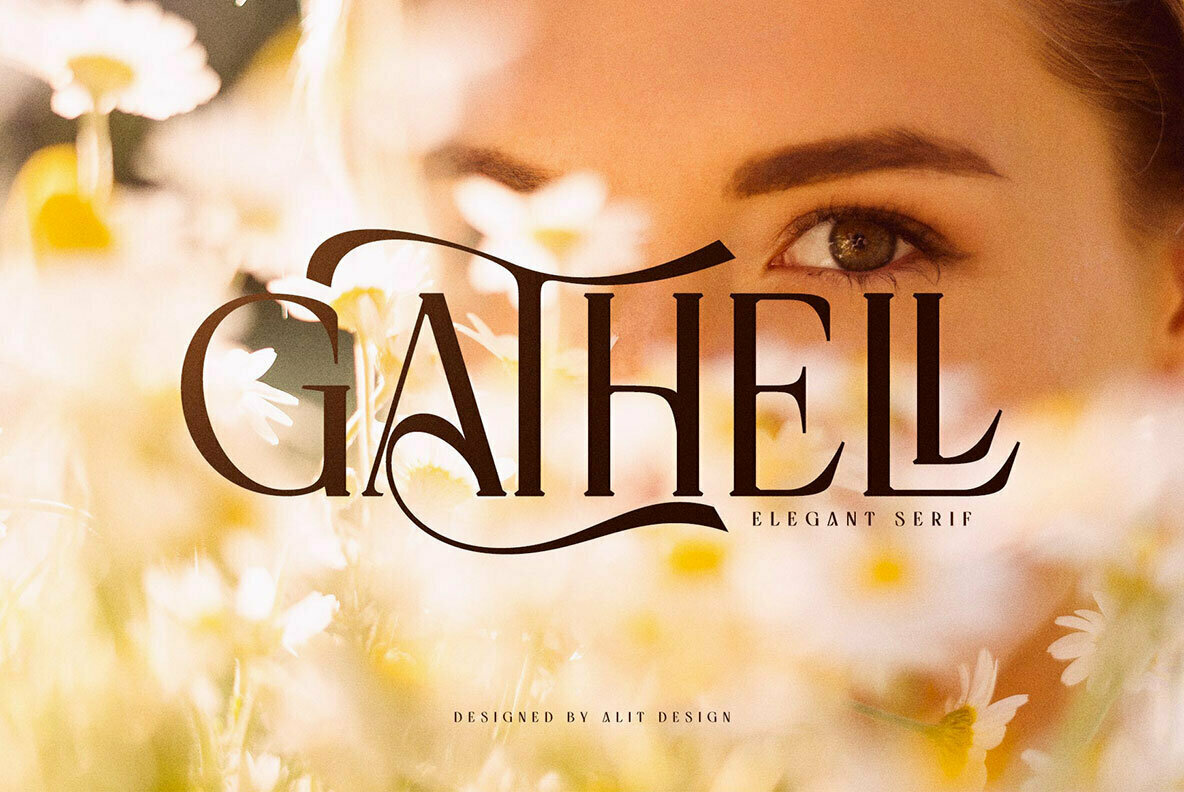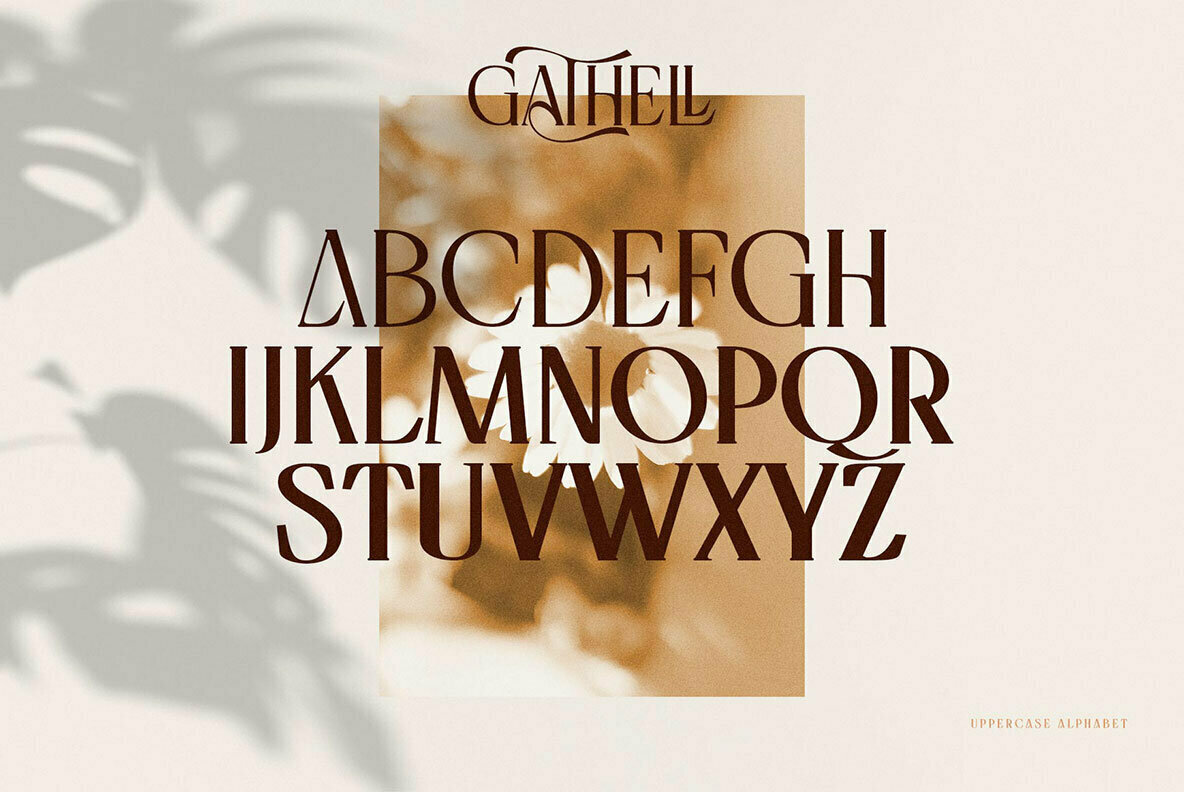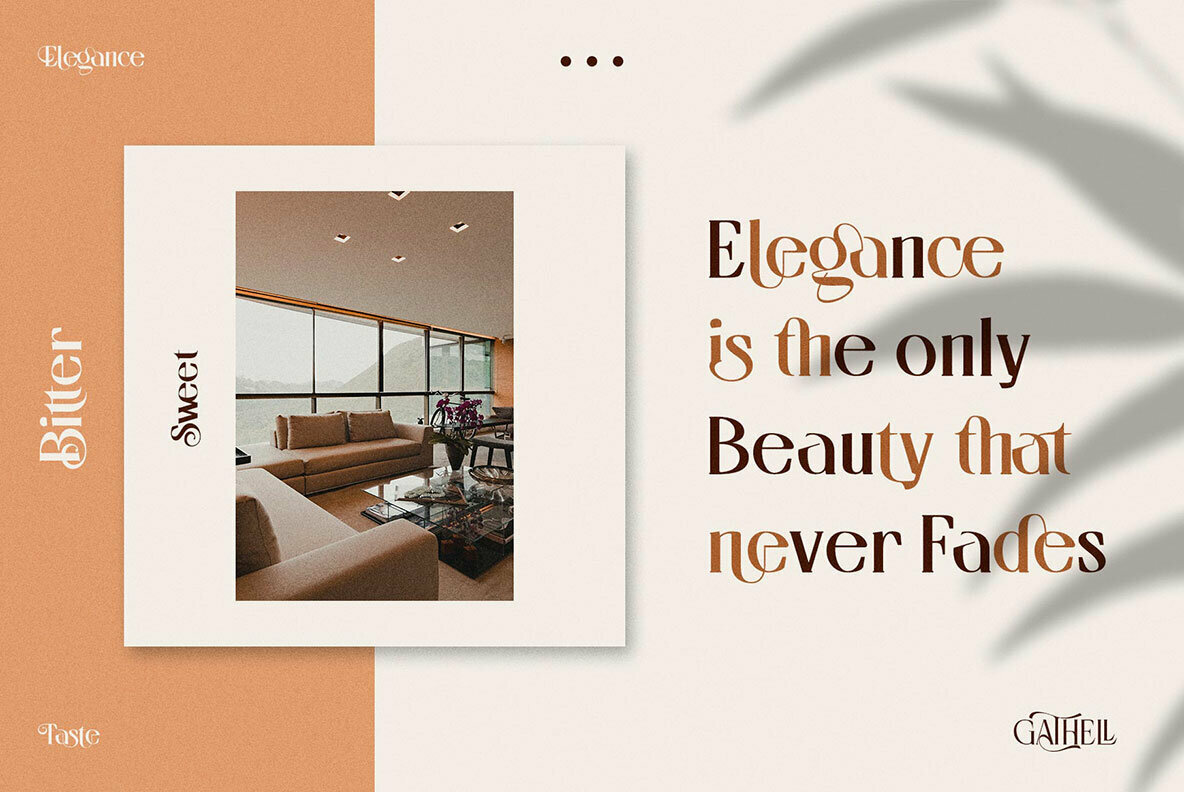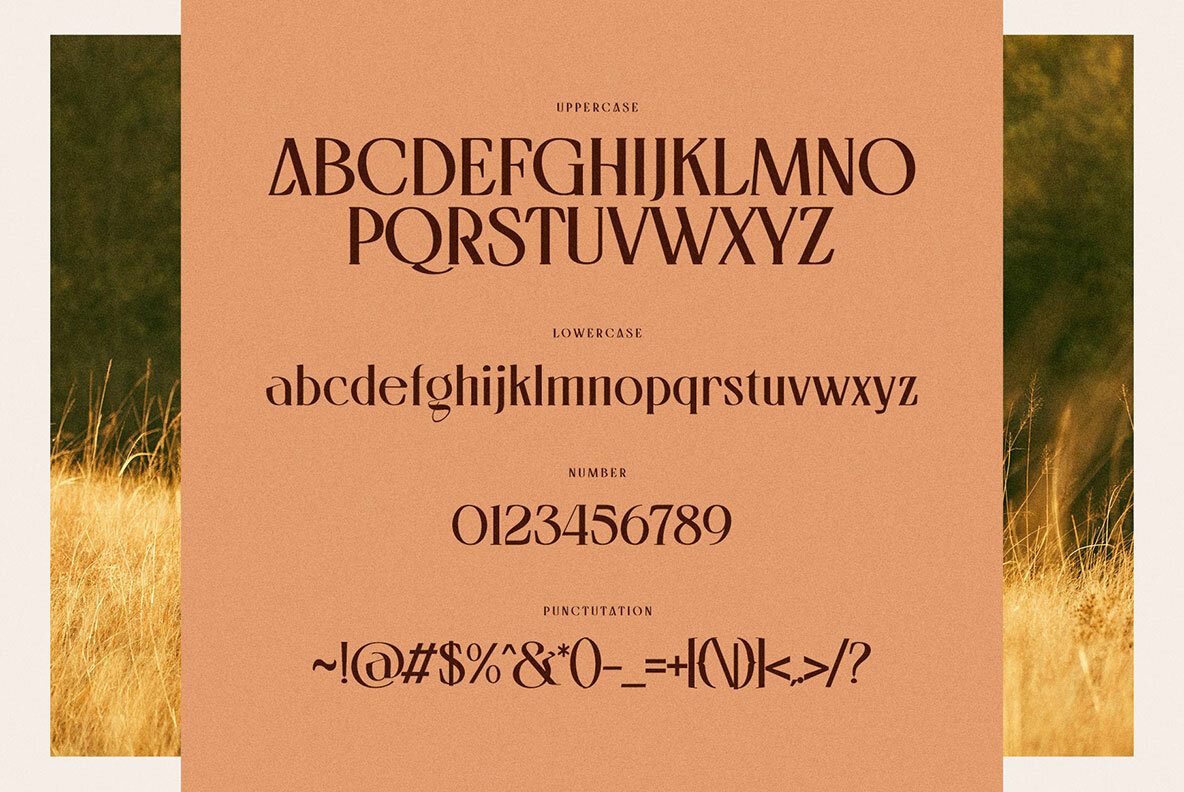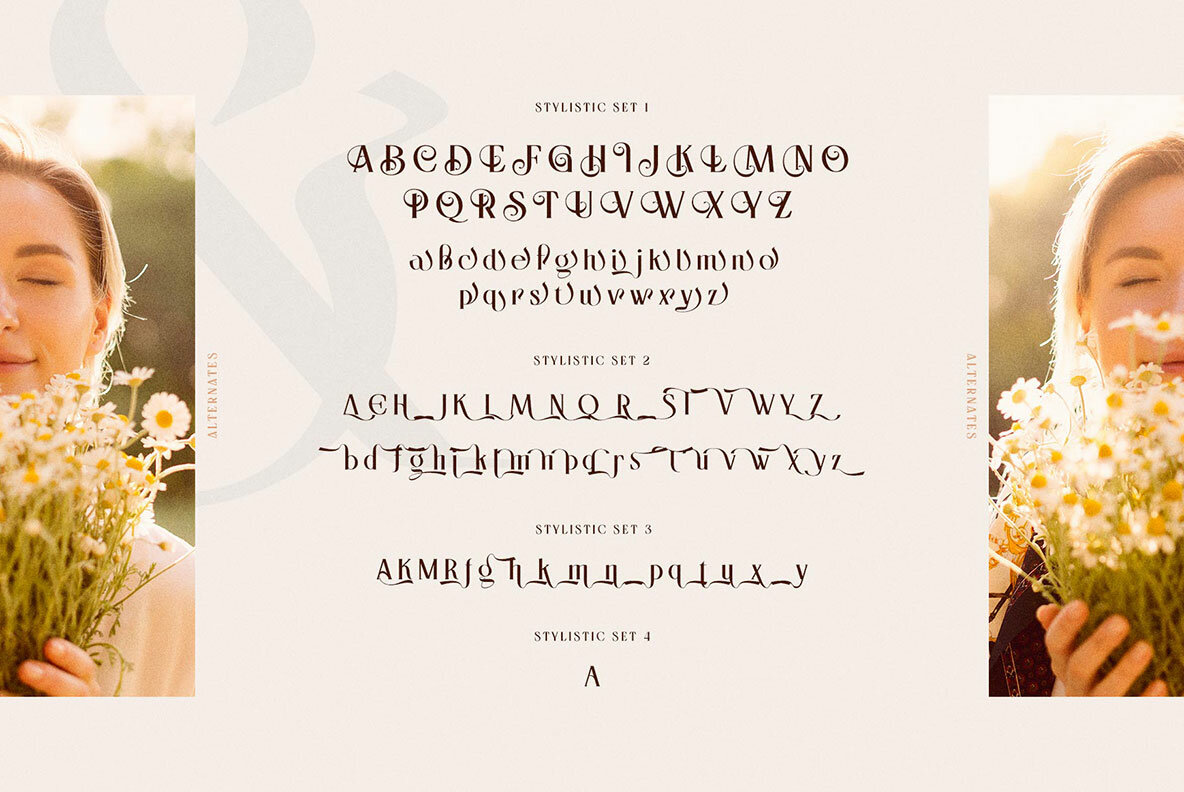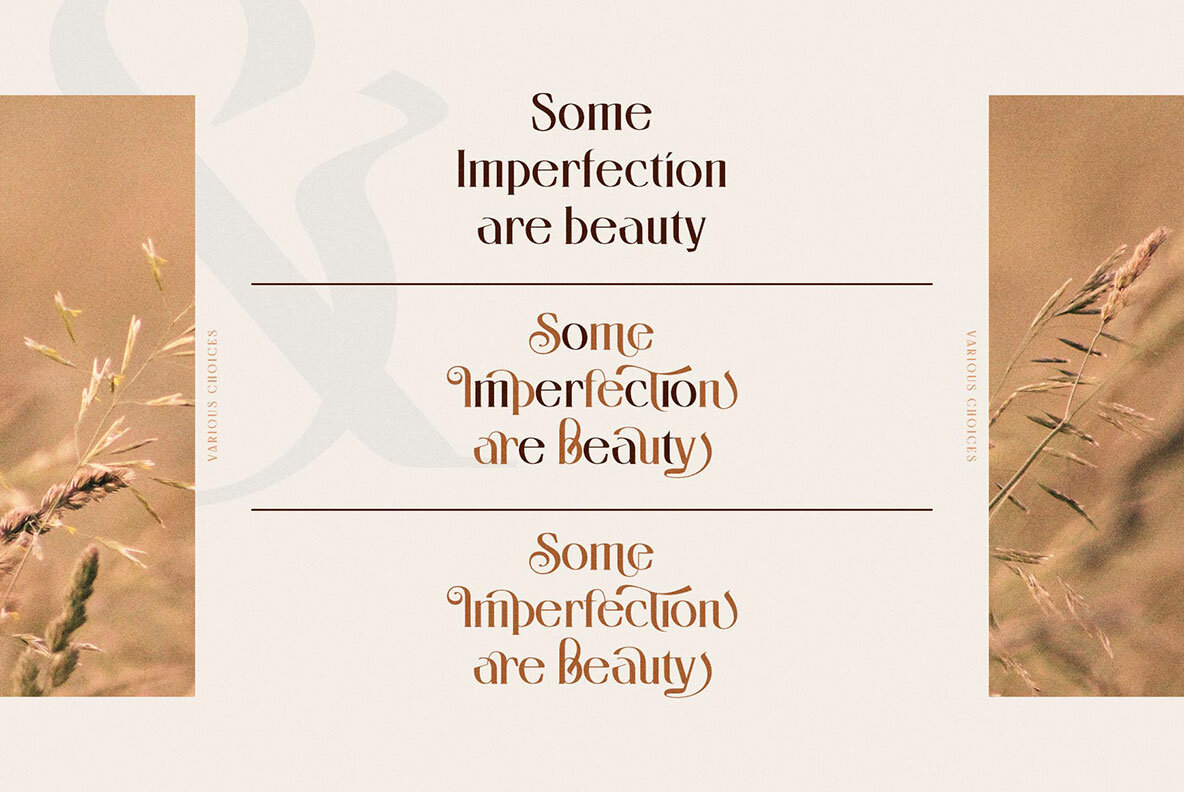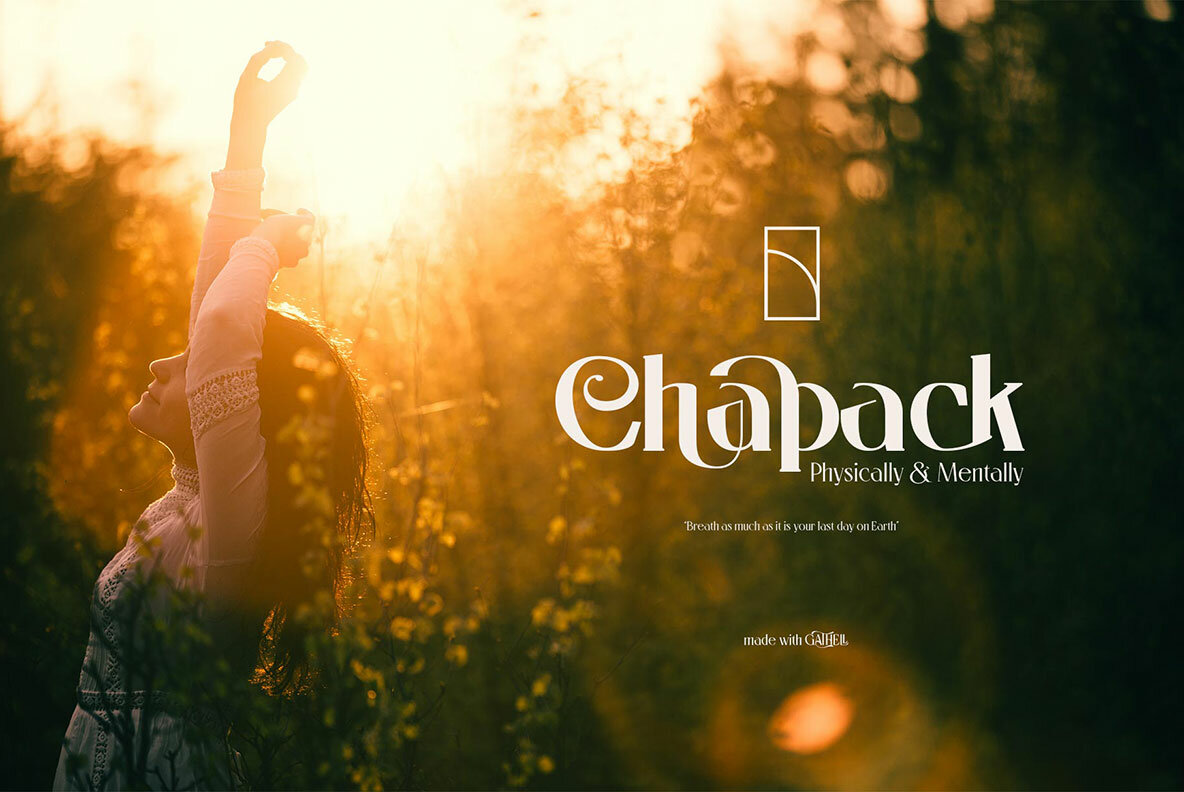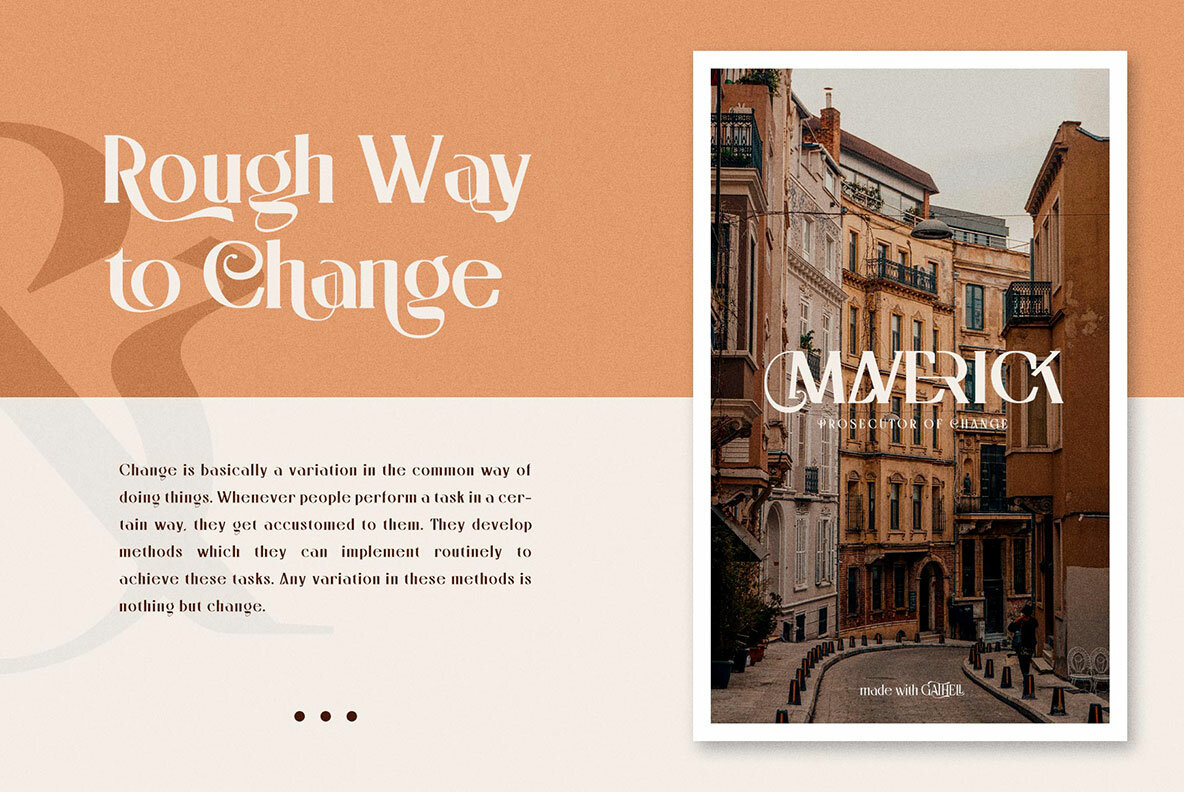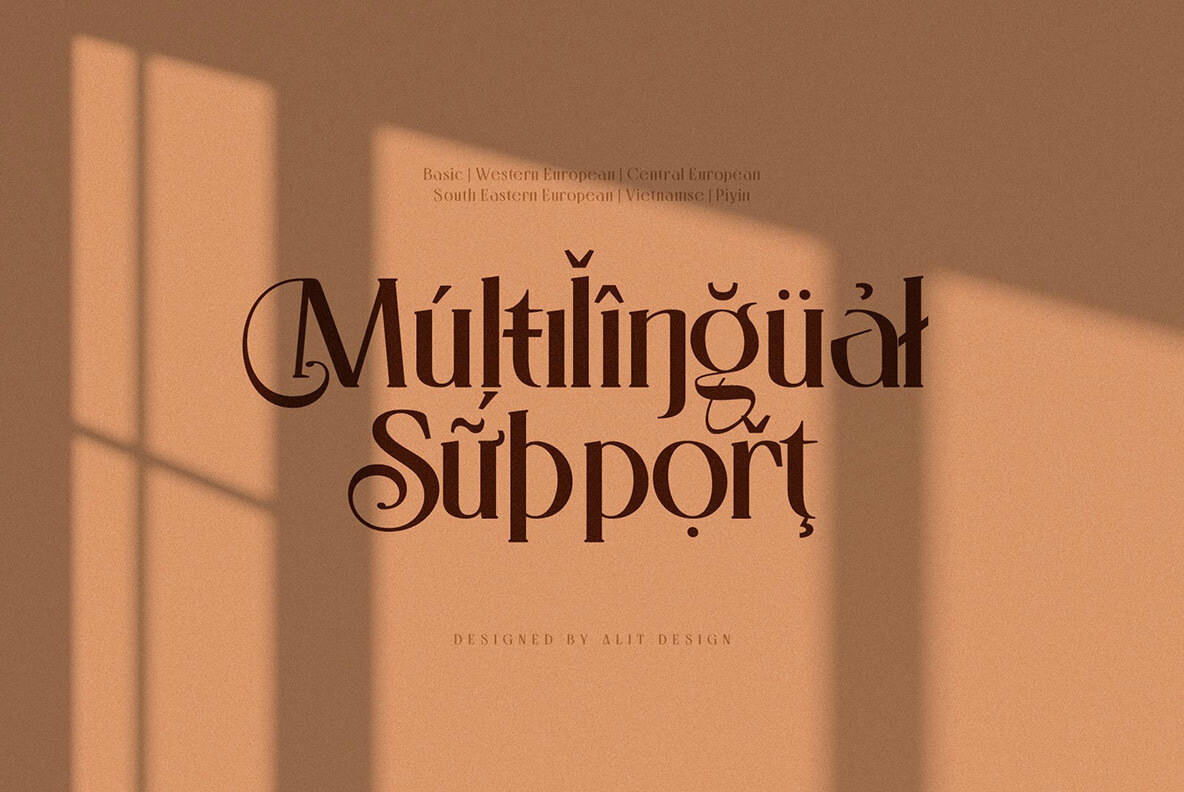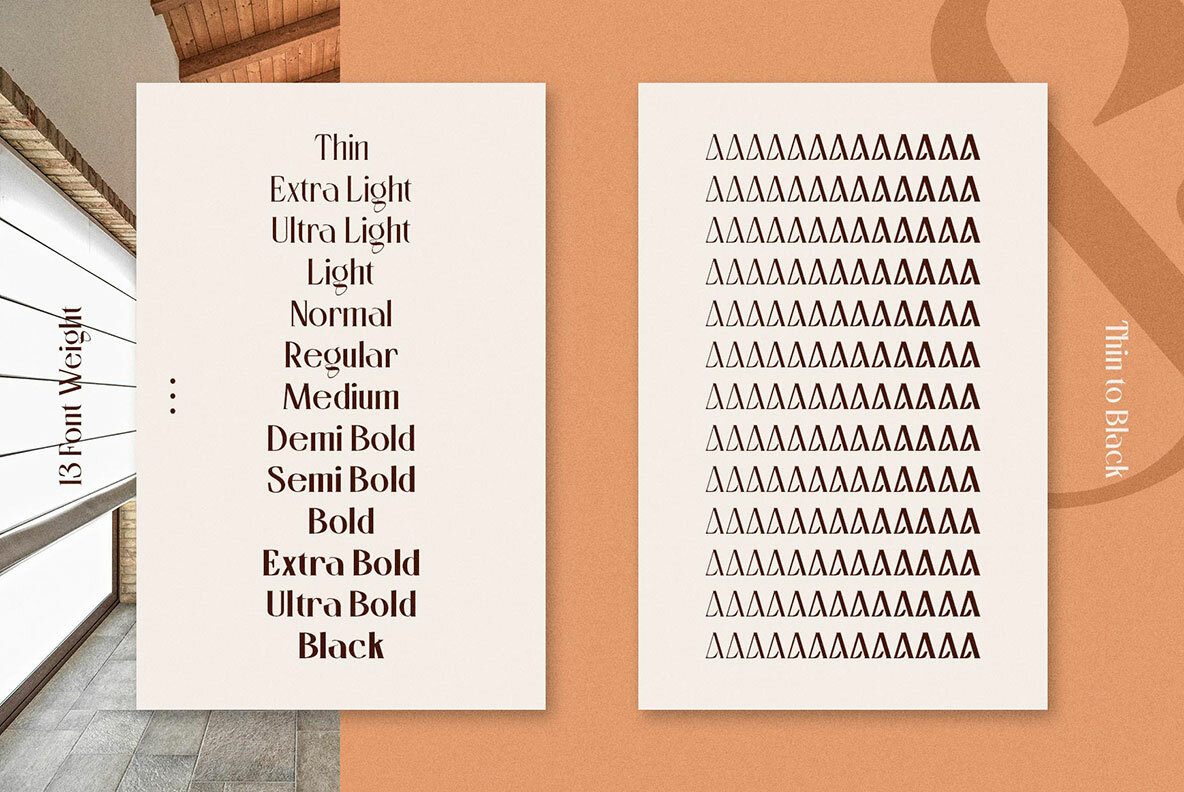
Gathell Typeface: Elegant Versatility in Thirteen Styles
The Gathell typeface blends modern elegance with unique design elements, capturing attention at first glance. This font family spans 13 distinct styles, ranging from Thin to Black, offering a versatile toolkit for your design endeavors. Whether your project aims for elegance, luxury, romance, or a fashion-forward approach, Gathell complements each with its sophisticated simplicity.
• 13 styles from Thin to Black
• Unique modern design
• Suitable for elegant, luxury, and romantic themes